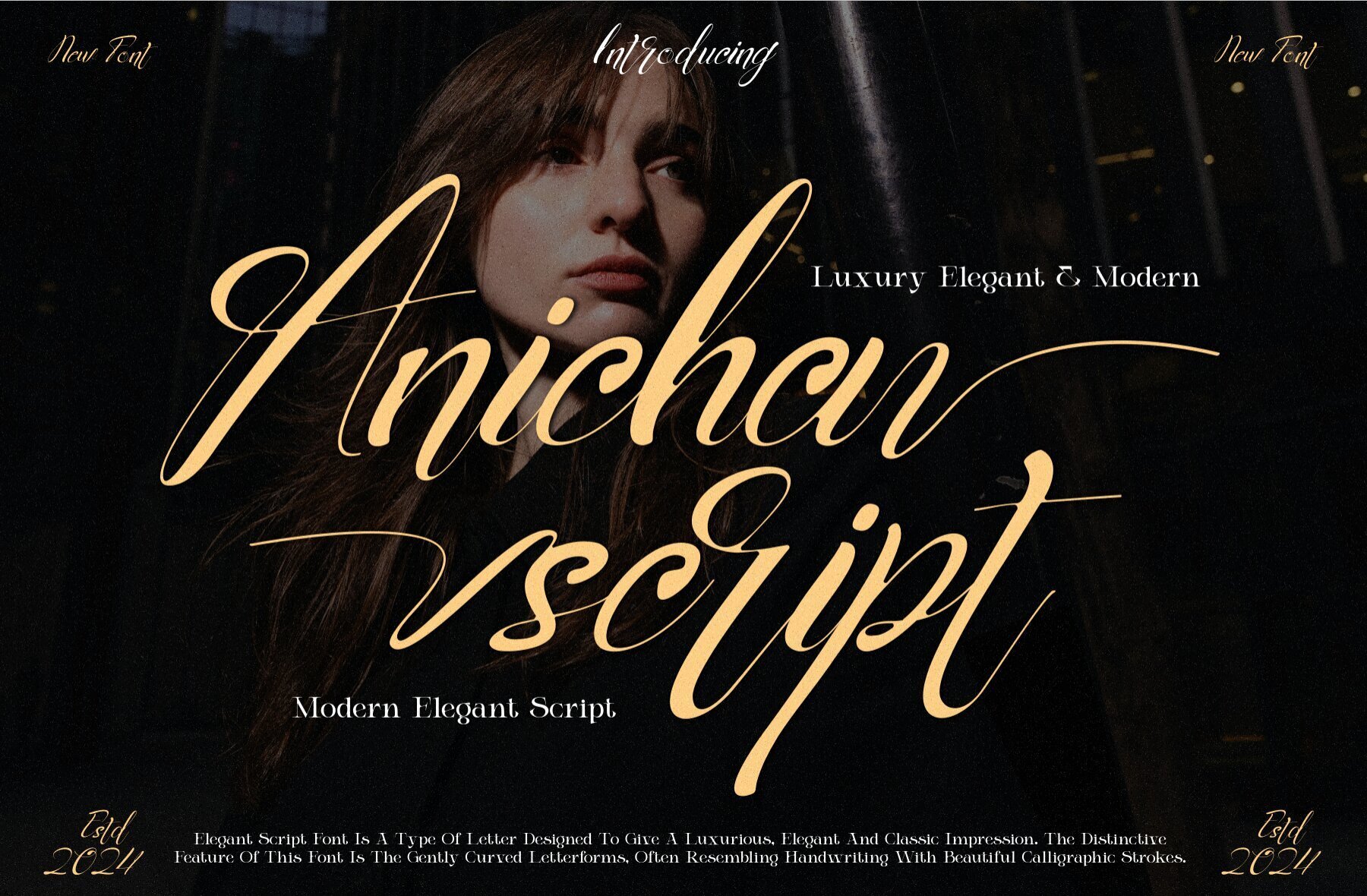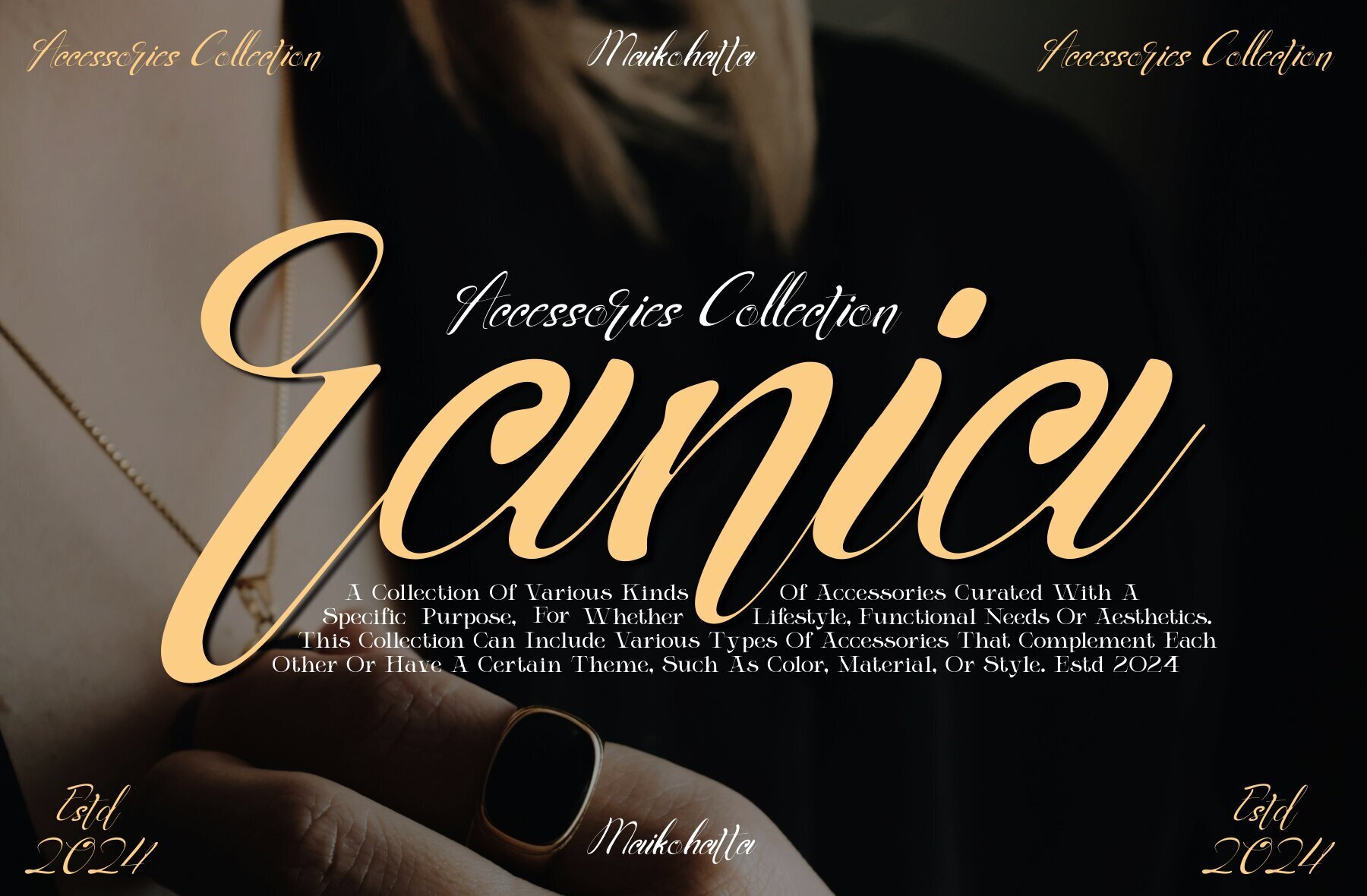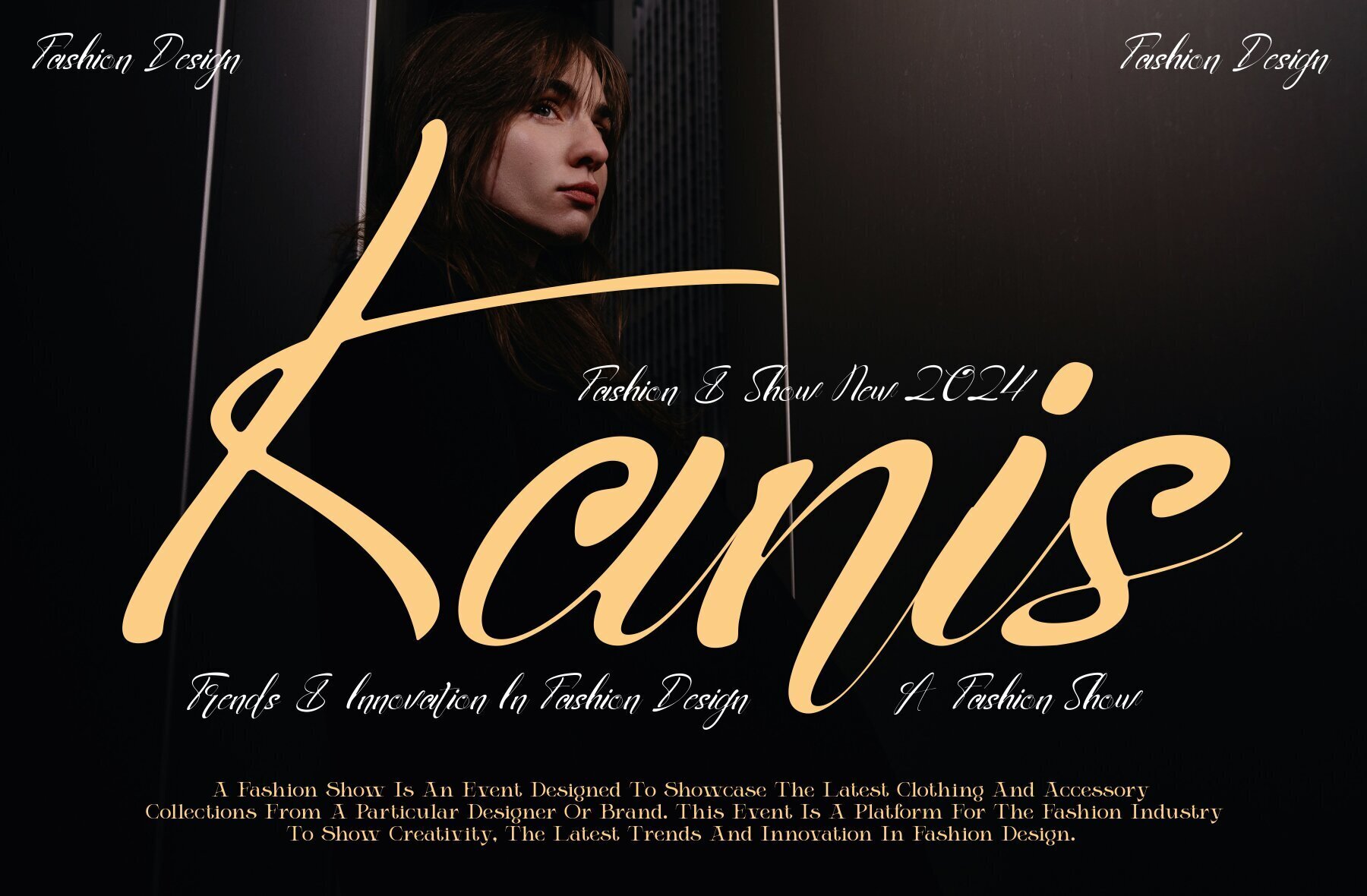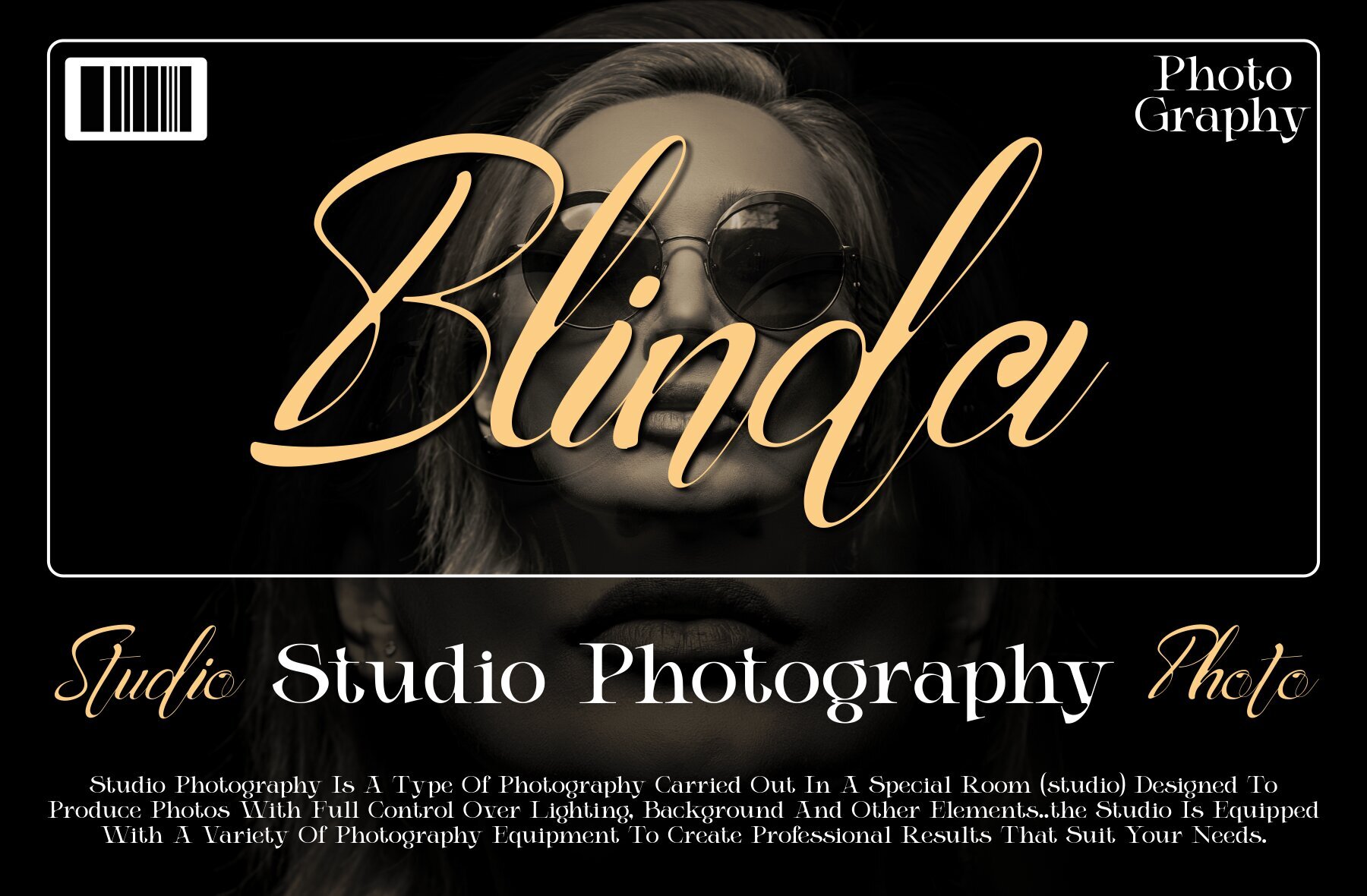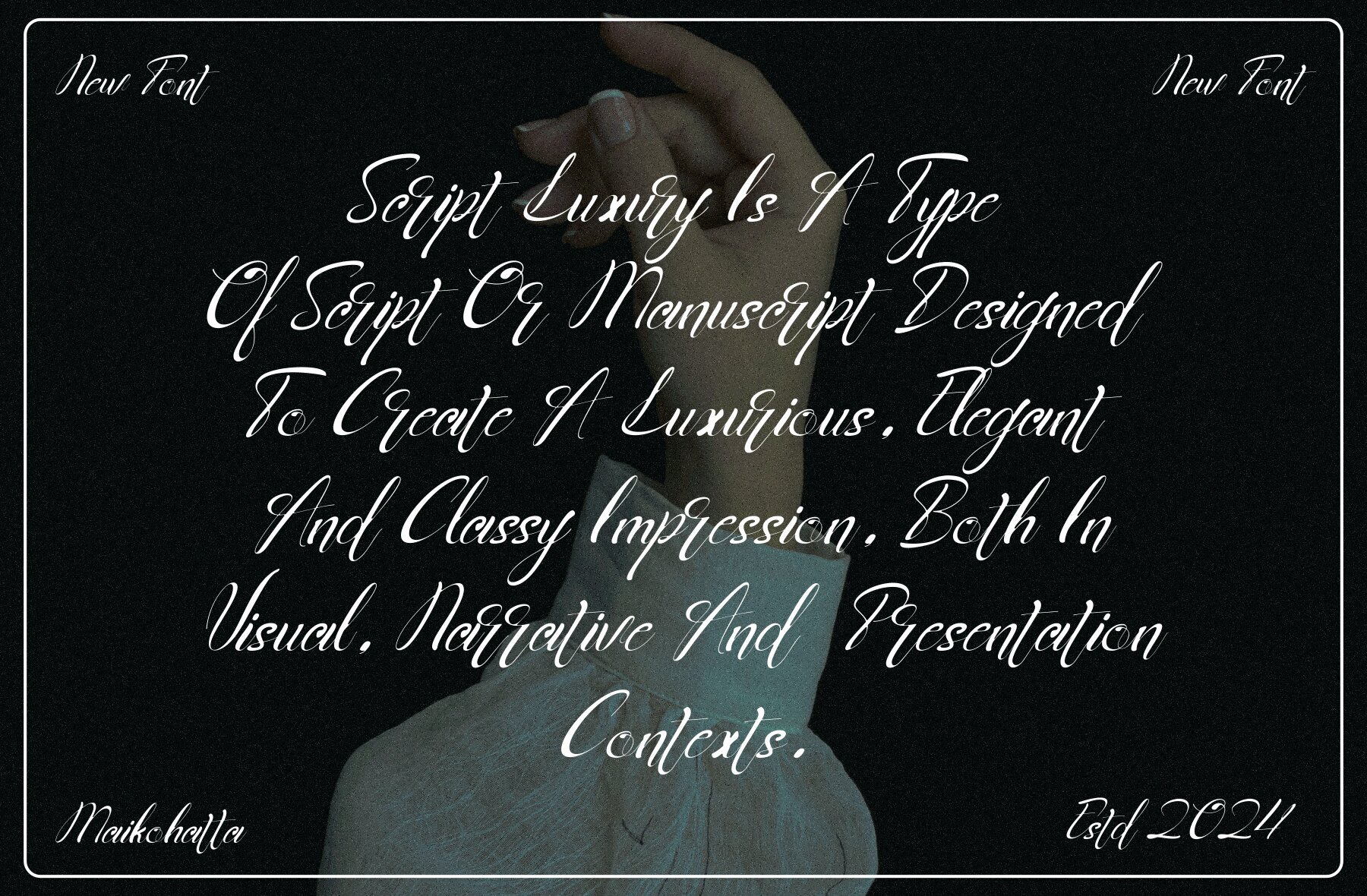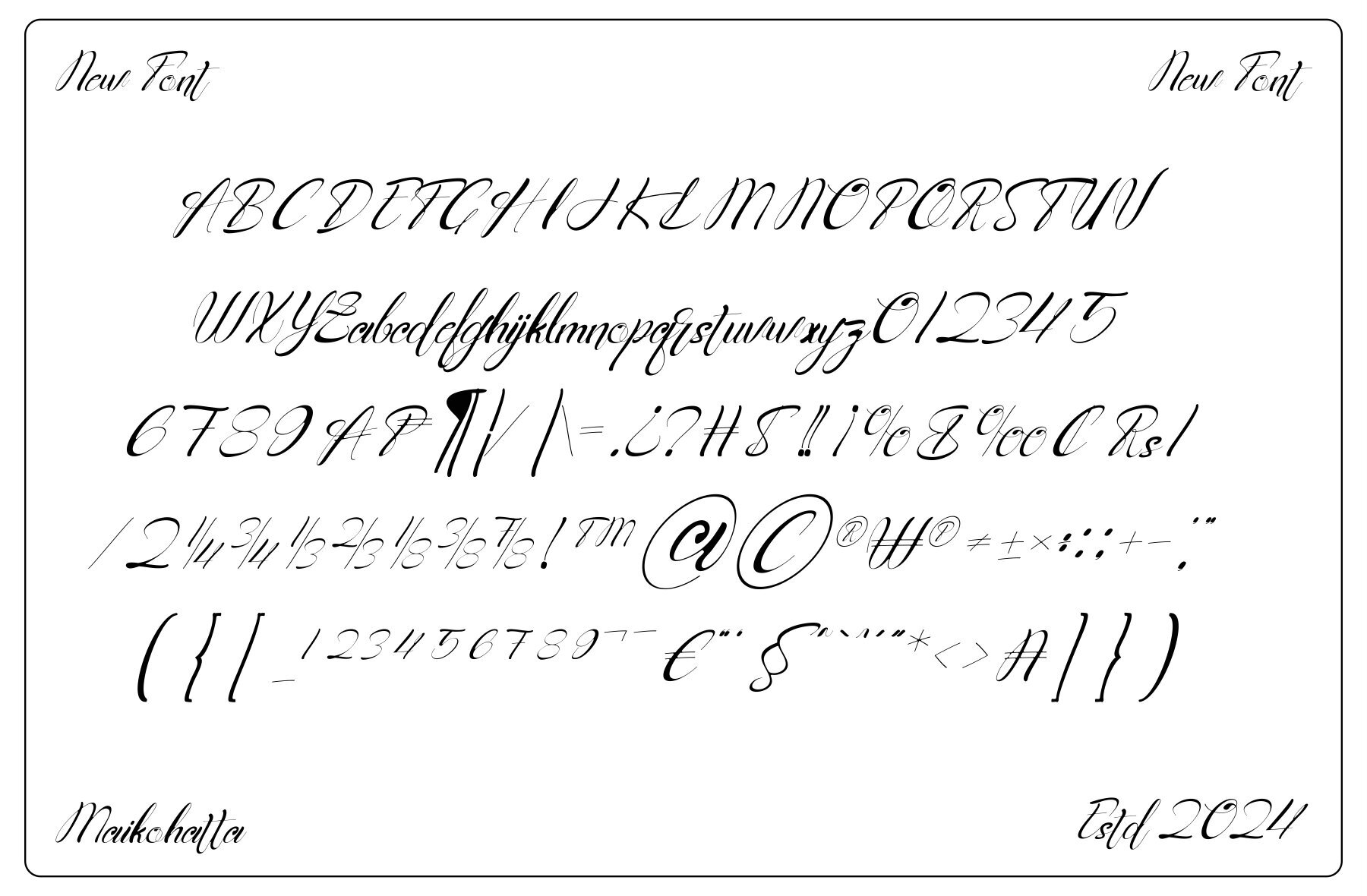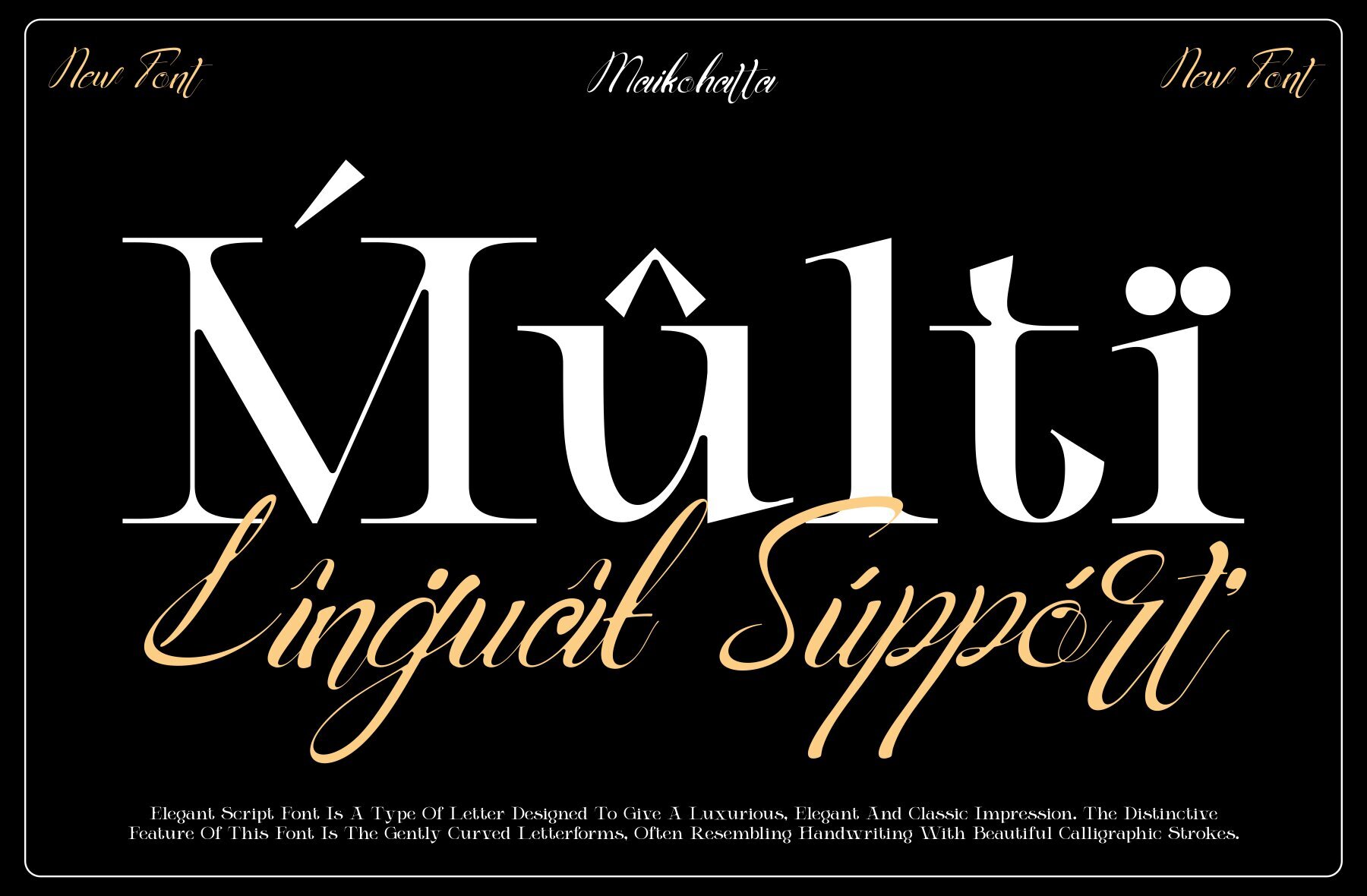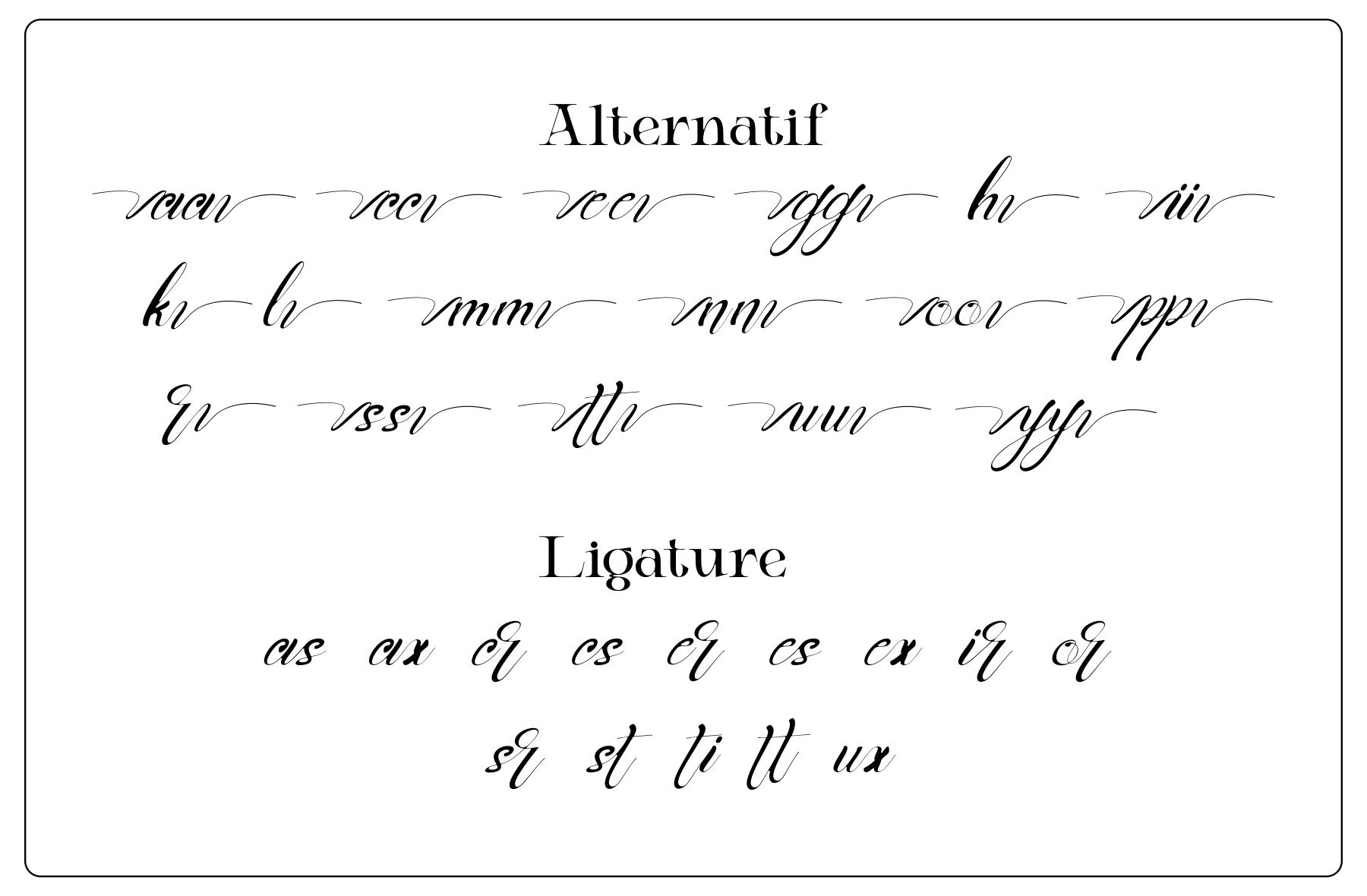
Anicha Font
Anicha Script
Anicha Script is a modern elegant script font characterized by its luxurious and sophisticated appearance. This typeface features a thoughtful blend of thin and thick lines, smooth curves, and refined serifs. The sharp corners and intricate details of each character enhance its aesthetic appeal, offering a distinctive sense of firmness and elegance.
This versatile font provides a wide range of features, including uppercase and lowercase letters, multilingual support, and stylistic ligatures. Anicha Script also offers alternates, allowing designers to explore varied creative expressions. Whether used for branding, invitations, or editorial designs, this font is designed to impart a sense of class and sophistication in any project.